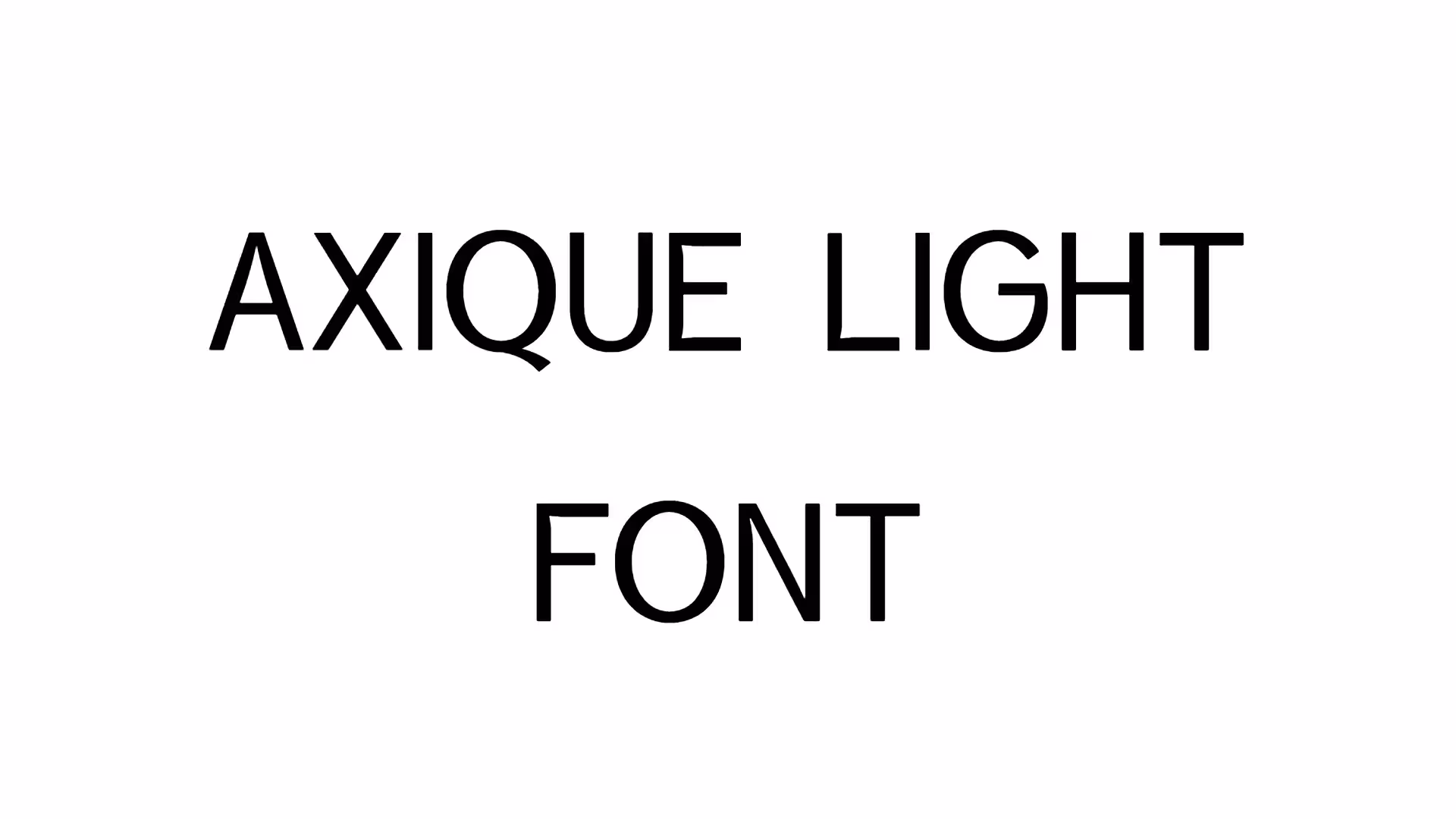
Axique Light
Axique Light is a sans serif font designed by Muhmmad Nur Alamsyah and published by Allmo Studio (2026). Its clean letters skip the little "feet" (serifs) of traditional type, so it looks modern and reads well on screens. You can download it for free and test it with your own words in the preview above.
What You Can Type With Axique Light
You get every letter from A to Z in both cases and all the numbers from 0 to 9, which means Axique Light can handle full sentences, dates and prices. Common punctuation such as &, !, ? and $ is included as well. It doesn't include accented letters such as é or ñ, which makes it an English-only font.
Where Axique Light Works Best
Designers usually reach for fonts like Axique Light when they're making websites, app screens and clean logos. Its lowercase letters are tall compared to the capitals, which keeps it readable at smaller sizes. It works for headings and body text alike. If the download has several weights, use a heavier one for titles and a lighter one for paragraphs.
Axique Light Font FAQs
Who designed Axique Light font?
Does Axique Light support accented letters?
No. Axique Light has no accented letters such as é, ñ or ü, so it's best for English text.